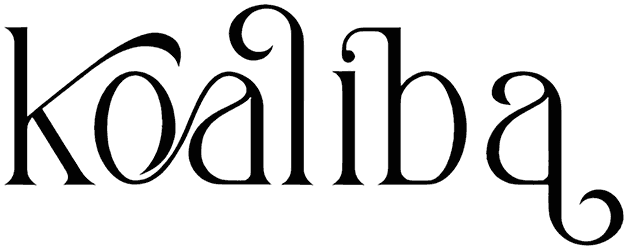
Sangrita Font
The amazing classic touch of this chic serif font is eager to give a distinctive look to your writing design. Sangrita font, accompanied by a complete set of alphabets in an alluring luxury face, thick, curly, and aesthetic invention, comes to give trendy effects in designing posters, movie titles, book covers, apparel, and others.